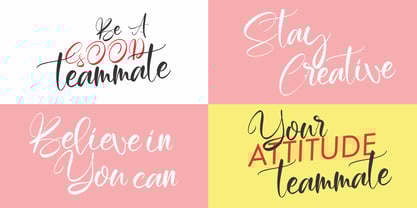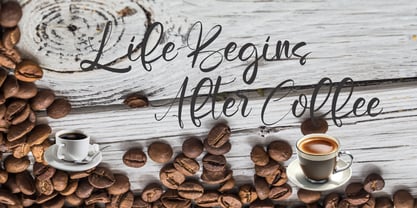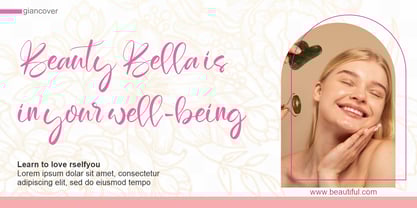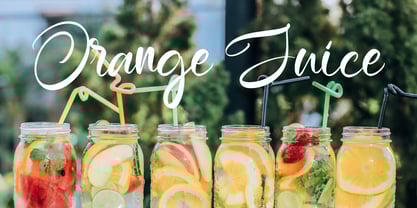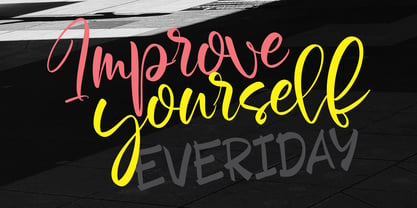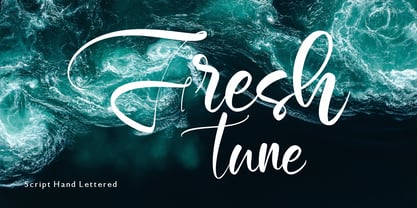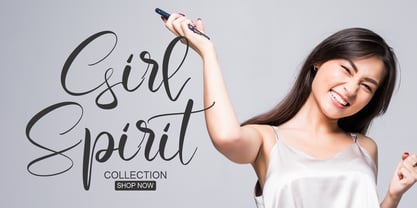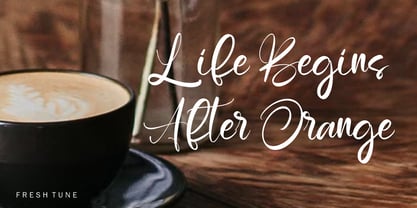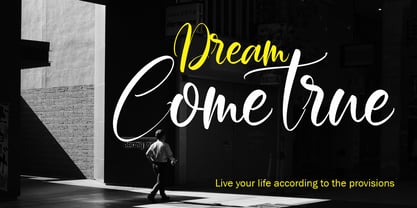
Fresh Tune
by Gian Studio
Fresh Tune is likely a font designed to emulate the look of traditional calligraphy. Calligraphy fonts are characterized by elegant, flowing strokes that mimic the appearance of handwritten script produced by a skilled calligrapher. Variant might refer to a specific style or design within the broader category of calligraphy fonts. These fonts are often used for formal invitations, wedding stationery, certificates, and other designs where a sophisticated and classic aesthetic is desired.